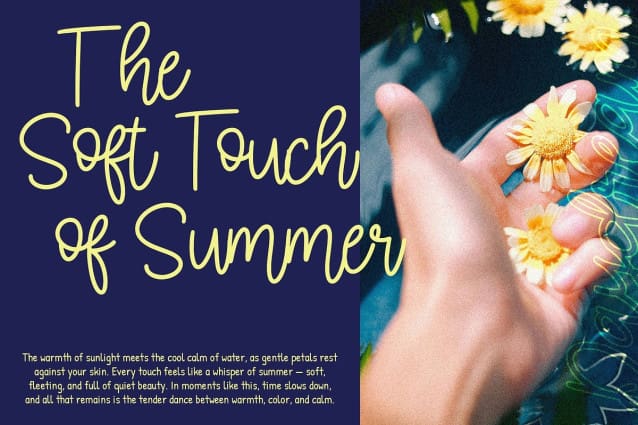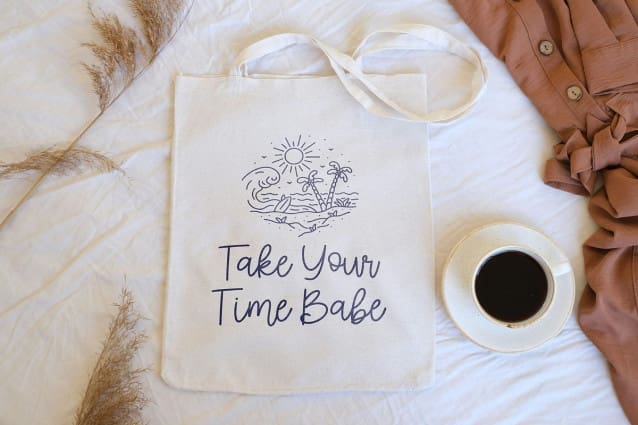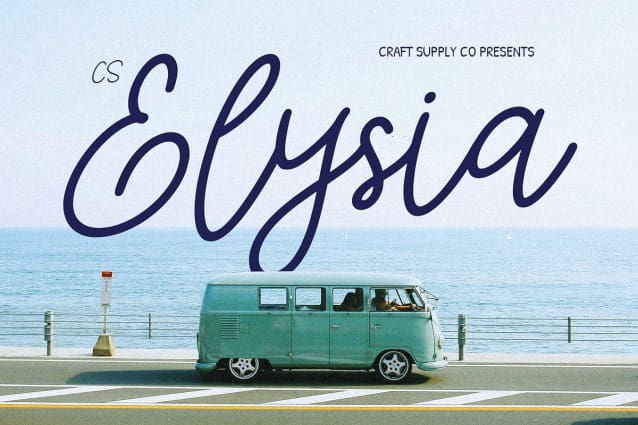
CS Elysia Font – This is a monoline script font that captures the essence of sophistication through its smooth, flowing lines and balanced rhythm. Every stroke is crafted with precision, offering a seamless blend of beauty and legibility. Its graceful curves evoke a sense of romance and timeless charm, making it ideal for designs that value elegance and emotional connection.
Effortless Style for Modern Luxury Designed with a focus on refinement and harmony, this font brings a luxurious touch to any project. The even line weight and soft motion of its characters create a modern yet classic appeal. Whether featured in high-end branding or editorial layouts, it exudes confidence and sophistication without overwhelming the design.
Perfect for Elegant and Romantic Designs This font shines in applications that demand a touch of class from wedding invitations and fashion branding to luxury product packaging. Its smooth, connected letters add a sense of intimacy and warmth, perfect for conveying beauty, love, and exclusivity.
Timeless Versatility and Poise With its clean monoline structure and refined personality, this font adapts effortlessly to both digital and print designs. It’s more than just a script font it’s a visual expression of grace, designed to elevate your creative work with poise, flow, and timeless sophistication.